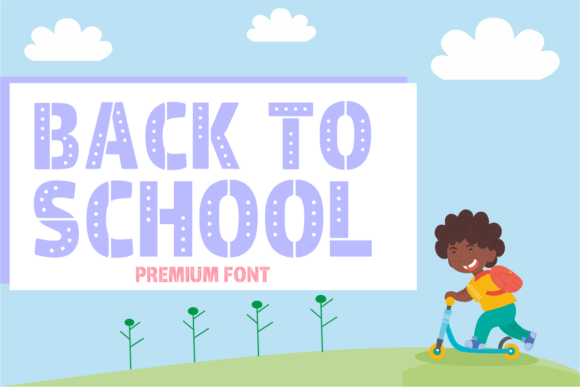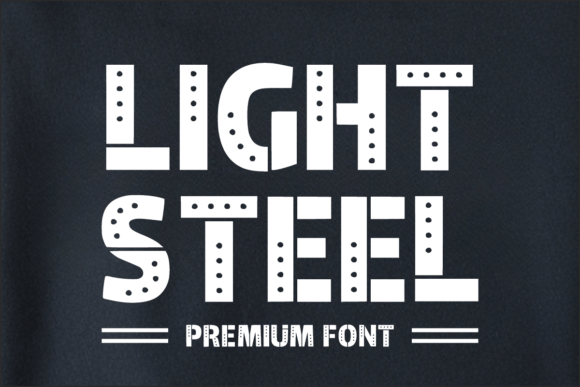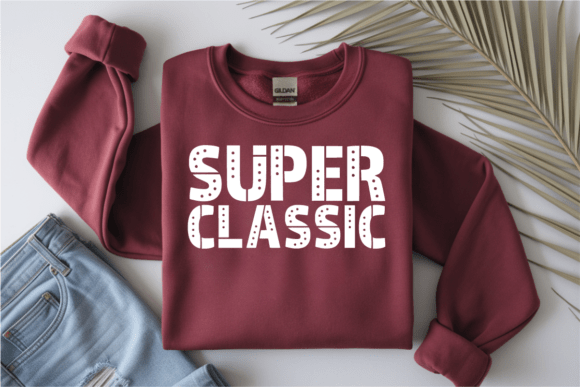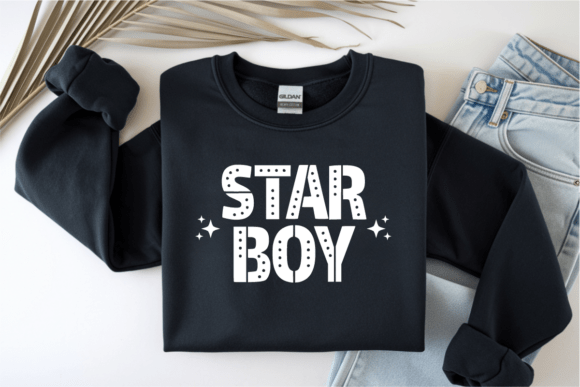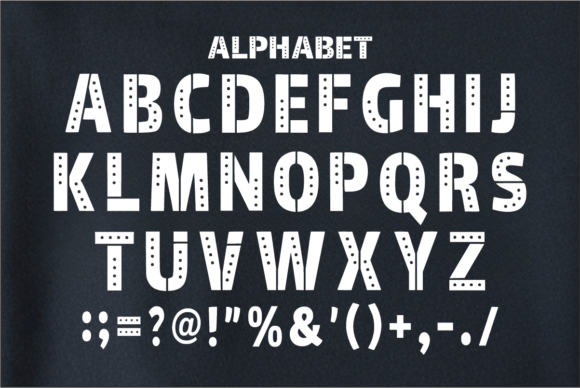
Introduction to School Students Font
Presenting “School Students,” a fresh, academic, cartoonish font.
Created purely with uppercase letters, this font boasts cool, distinctive, and robust characters that are instantly identifiable Its playful appeal makes it ideal for refreshing baby artwork projects, adorning sublimated tees, customizing mugs or tote bags, adding vibrance to animations, crafting comic headlines, enhancing children’s coloring books, and catering to all things kids-oriented.
Key Features of School Students Font